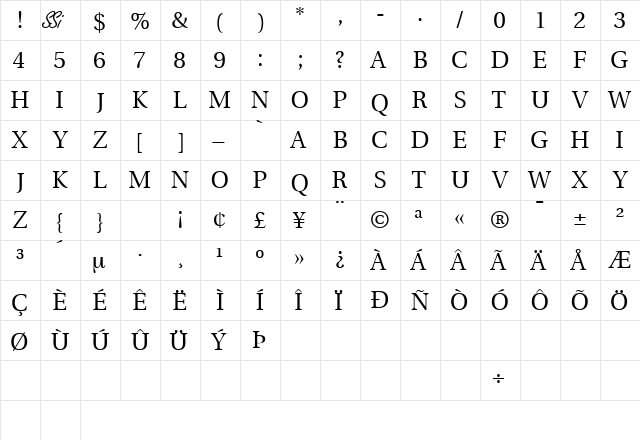
VeracityTitlingCapsSSK Regular
Design Context for VeracityTitlingCapsSSK Typeface
VeracityTitlingCapsSSK is a composed and adaptable typeface that performs quietly and consistently across a wide range of design contexts.